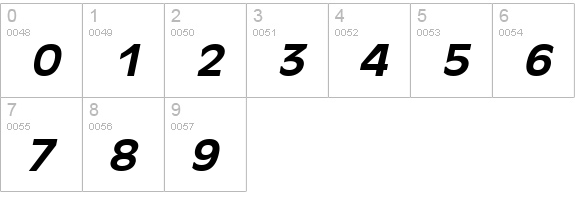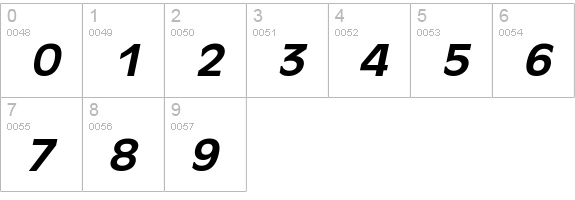
Antiqua 101 Wide BoldItalic Font Details
Antiqua 101 Wide BoldItalic is a distinctive, extended-width variant in the Antiqua typeface family \xE2\x80\x94 well suited to design and typography projects.